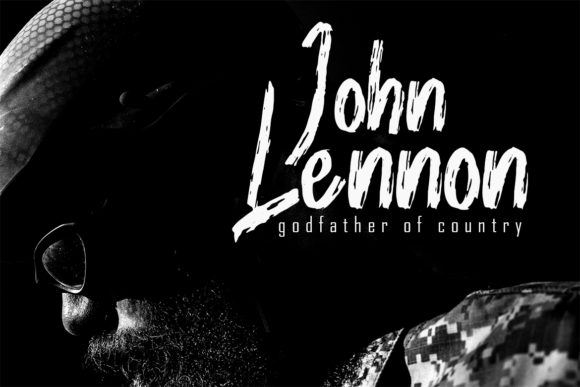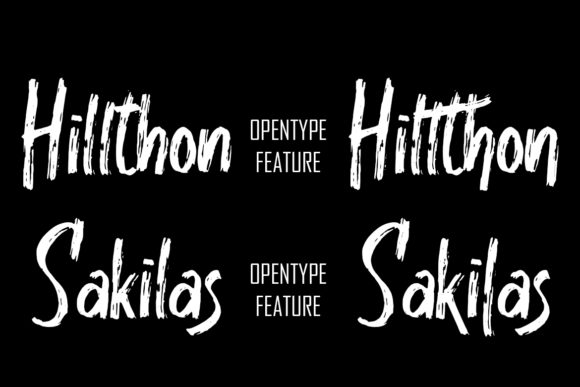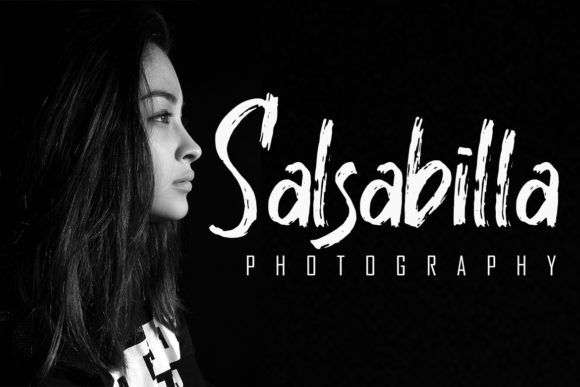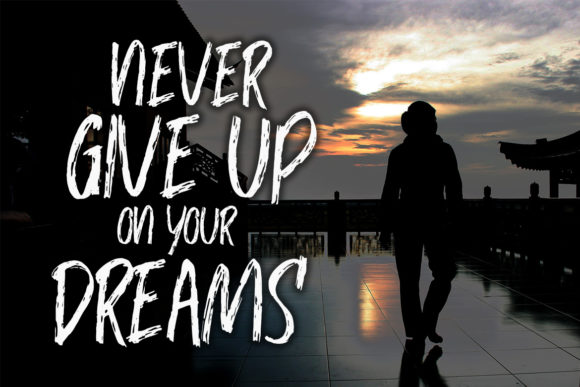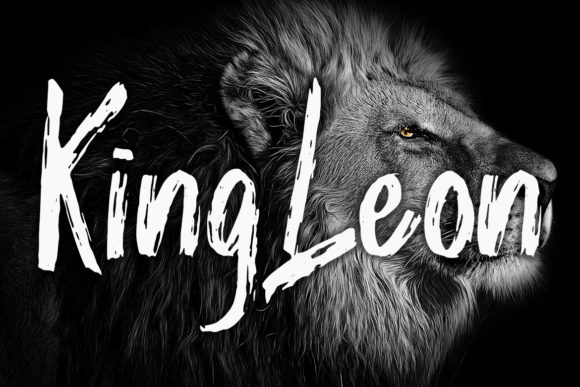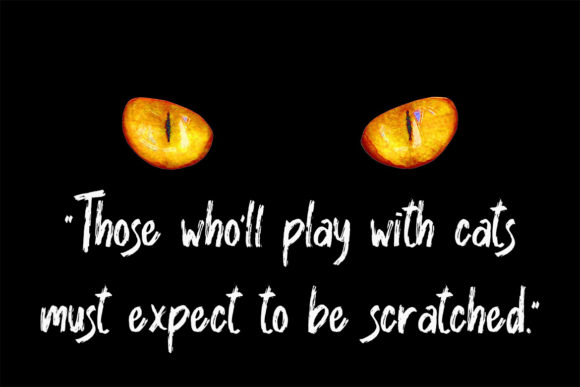
Introduction to Rougthy Font
Have you ever found yourself in the middle of a creative project, staring at a blank canvas or screen, waiting for that spark of inspiration to strike? For designers, this moment is all too familiar. It’s the moment when the perfect font can make all the difference, elevating your design from ordinary to extraordinary. Enter the Rougthy Font, a beautiful and quirky display font that’s about to become your new go-to design resource.
With its flowing lines and unique brush pen feel, the Rougthy Font is the perfect fit for any creative project that requires a touch of personality. Whether you’re working on a logo, branding, social media graphics, or a crafty DIY project, this high-quality font is sure to impress. And the best part? It’s available for free download, complete with a transparent background, making it easy to integrate into your design.
Key Features of Rougthy Font
- High-quality design resource with a unique, creative style, perfect for various projects.
- Includes a range of glyphs and characters, making it suitable for a variety of creative projects, from logos to typography.
Honest Review: Rougthy Font
As a designer, I’m always on the lookout for high-quality fonts that can elevate my creative projects. Recently, I stumbled upon the Rougthy Font, and I’m excited to share my honest review.
What works well: ✨ The Rougthy Font is incredibly versatile, suitable for a wide range of creative projects, from graphic design to web development. Its unique style and clean lines make it an excellent choice for designers looking to add a touch of sophistication to their work. Additionally, the font is available for free download, making it a valuable resource for designers on a budget.
What’s not so great: ⚠️ One limitation of the Rougthy Font is that it only comes in a transparent background, which can be a bit tricky to work with for designers who prefer a solid background. However, this is a minor issue, and the benefits of using this font far outweigh the drawbacks.
Overall, I’m impressed with the Rougthy Font. Its high quality and unique style make it a valuable addition to any designer’s toolkit. If you’re looking for a reliable and stylish font for your next creative project, I highly recommend giving the Rougthy Font a try.
- High-quality font
- Suitable for a wide range of creative projects
Rougthy Font
Rougthy Font is a unique and creative design resource perfect for adding a touch of elegance to your project. This high-quality font is available for free download and can be easily integrated into various design platforms.
Tips for Getting the Most Out of Rougthy Font
Here are some tips to help you get the most out of Rougthy Font:
- Experiment with different font sizes and styles to create a unique look.
- Use Rougthy Font with a transparent background to create a clean and minimalist design.
- Combine Rougthy Font with other design elements to create a visually appealing design.
Rougthy Font is perfect for:
- Creating elegant business cards and letterheads.
- Designing high-quality brochures and flyers.
- Adding a touch of sophistication to your website’s typography.